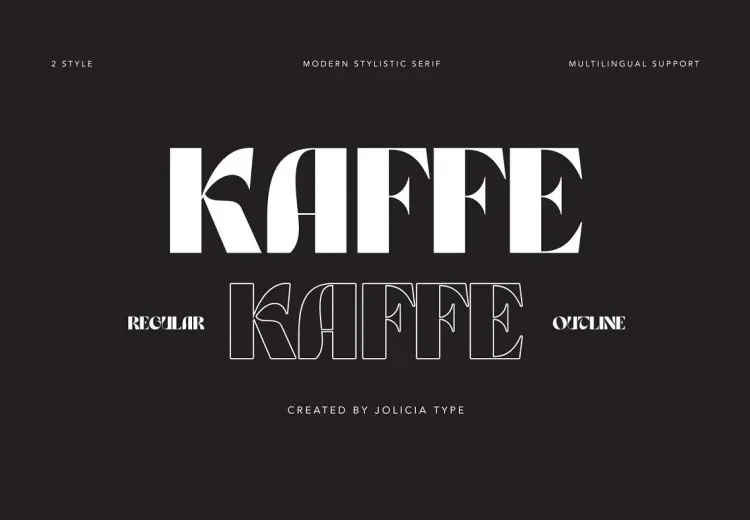
Kaffe Font
Kaffe is a bold and striking display typeface that draws inspiration from iconic retro fonts while embracing modern design elements. Its combined outline style seamlessly blends nostalgic influences with contemporary aesthetics, making it a versatile choice for various design applications.
Perfect for logos, branding campaigns, and digital marketing strategies, Kaffe delivers a unique, memorable impression that stands out in any context. Its bold form ensures that it captures attention, making it an excellent option for both vintage-inspired and modern projects.
Whether you’re creating eye-catching designs for promotional materials or building a strong brand identity, Kaffe adds a touch of personality and distinction, ensuring your message resonates with clarity and style.